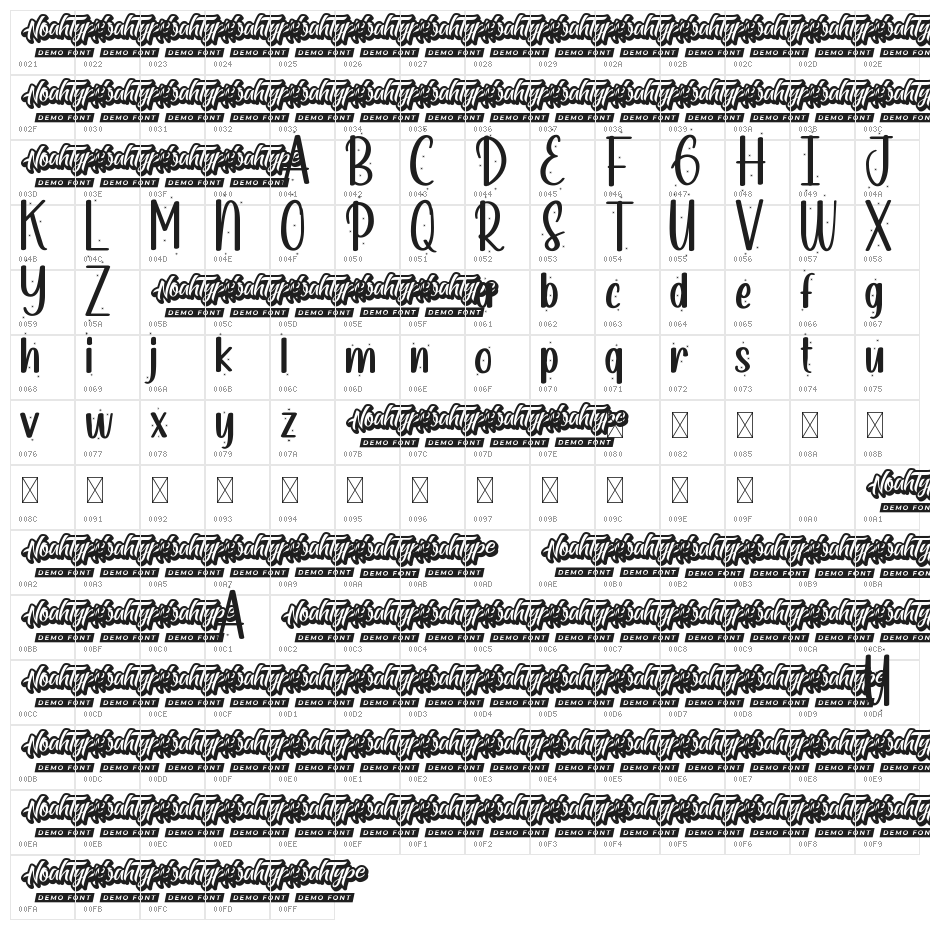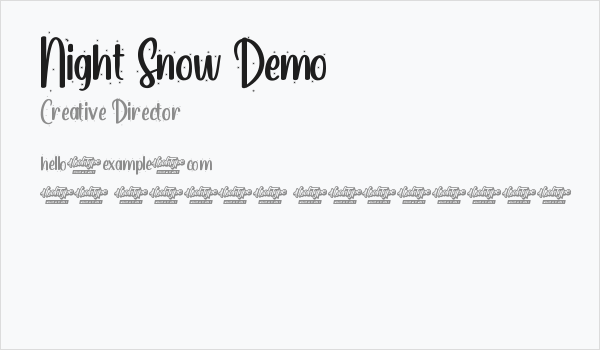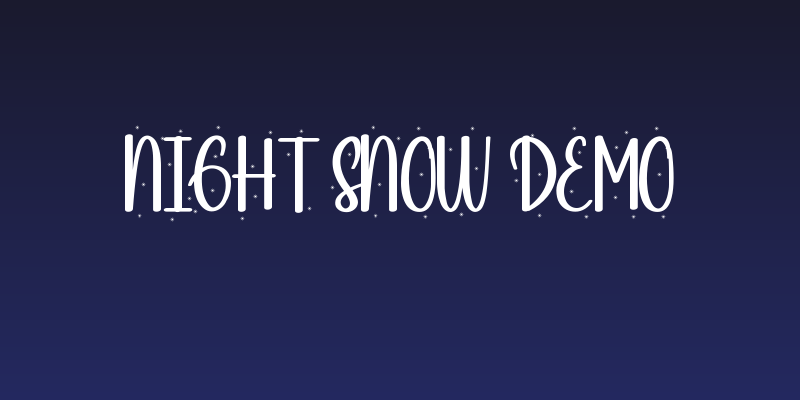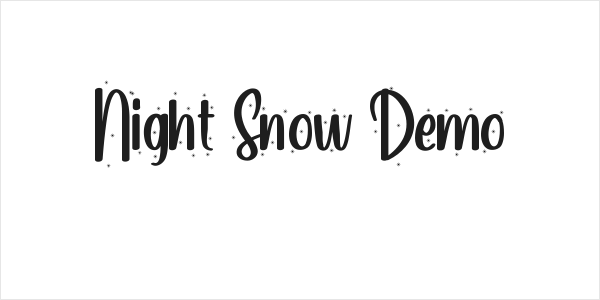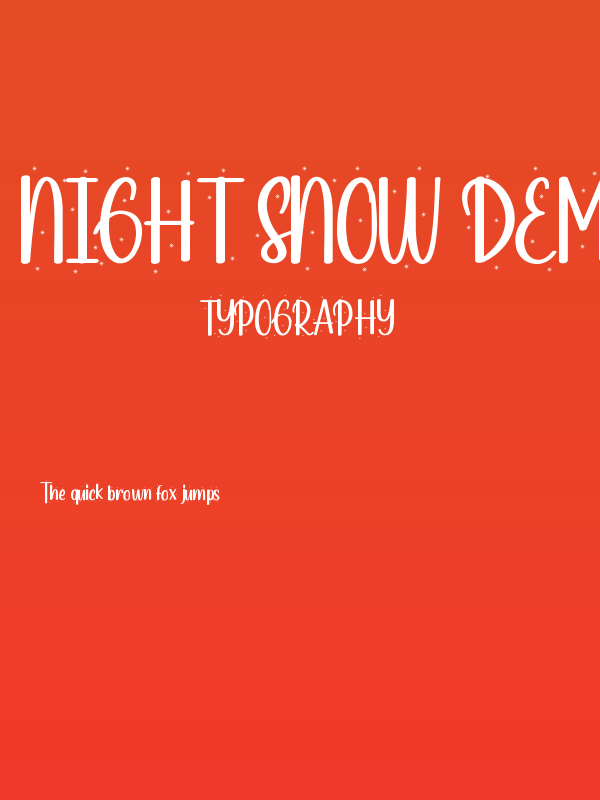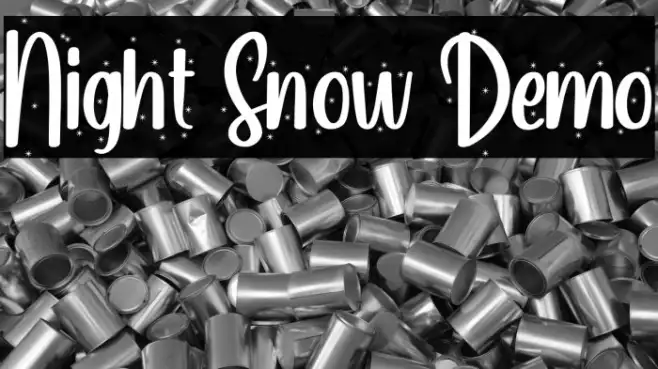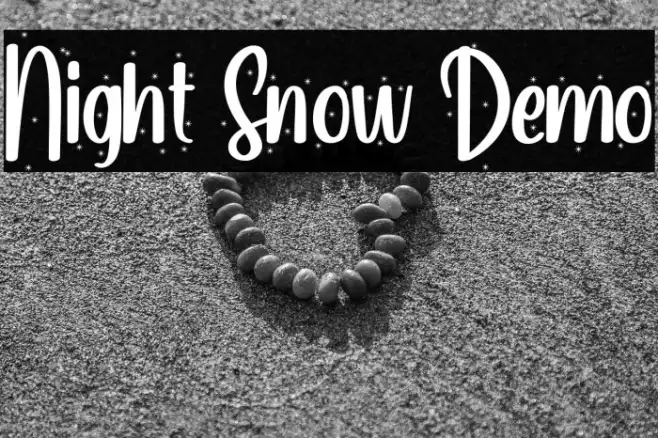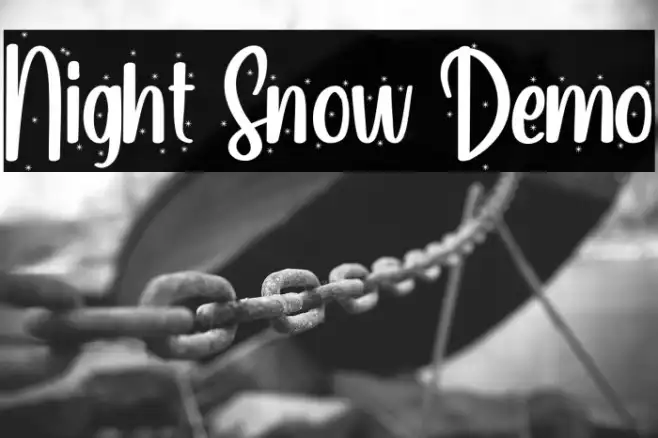
Night Snow Demo Font
Night Snow Demo Description
This font features a playful and whimsical style, characterized by its tall, narrow uppercase letters and bold, rounded lowercase letters. The uppercase letters have a unique, slightly elongated form with some decorative elements, such as stars, adding a festive touch. The lowercase letters are more robust and rounded, providing a nice contrast to the uppercase. The numbers and special characters maintain the same playful aesthetic, making this font suitable for creative and fun projects. The overall design is eye-catching and perfect for capturing attention.
| Use Case | Headlines, Logos, Event Invitations |
| Proposed Projects | Ideal for holiday cards, children's book covers, playful branding, and festive event invitations. |